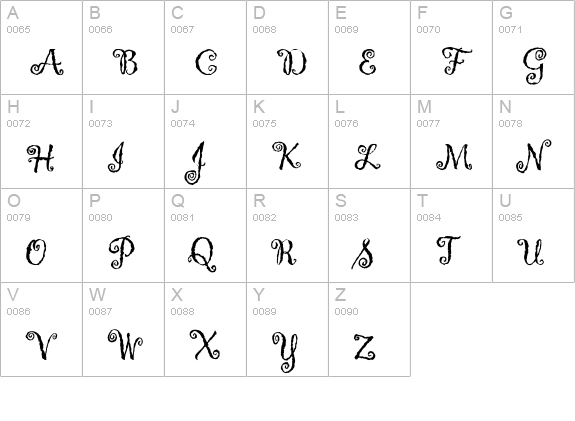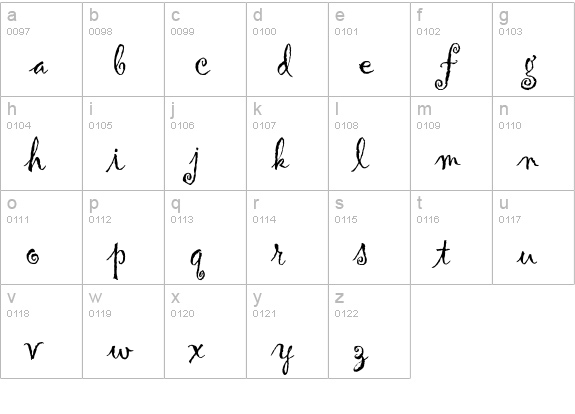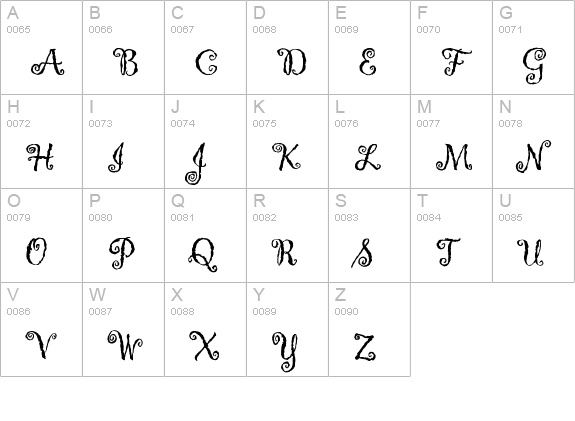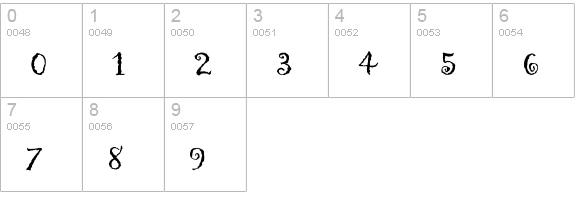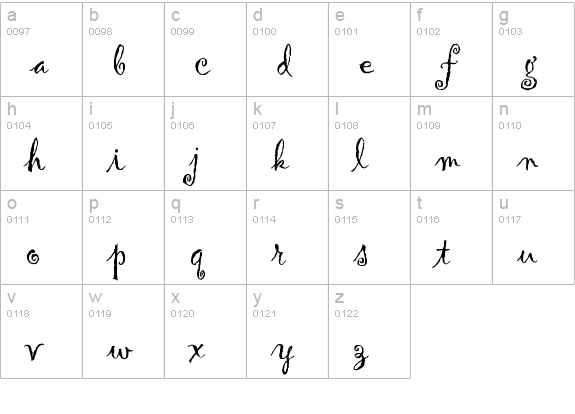
Gigi Plain Font Details
Gigi Plain font is a charming and elegant typeface that exudes a sense of sophistication and style. With its clean lines and classic look, this font is perfect for a wide range of design projects, from branding and packaging to invitations and social media graphics. The timeless appeal of Gigi Plain font makes it a versatile choice for both print and digital applications. Best of all, Gigi Plain font is available for free download at FontsMarket.com. This means that you can access this beautiful font without any cost, making it an excellent option for designers looking to add a touch of class to their creations without breaking the bank. Don't miss out on the opportunity to enhance your designs with the timeless beauty of Gigi Plain font - download it for free today!